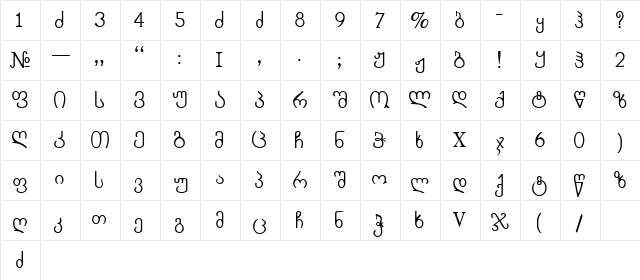
Chveulebrivi From GSH Normal
Chveulebrivi From GSH is a composed and adaptable typeface that performs quietly and consistently across a wide range of design contexts.